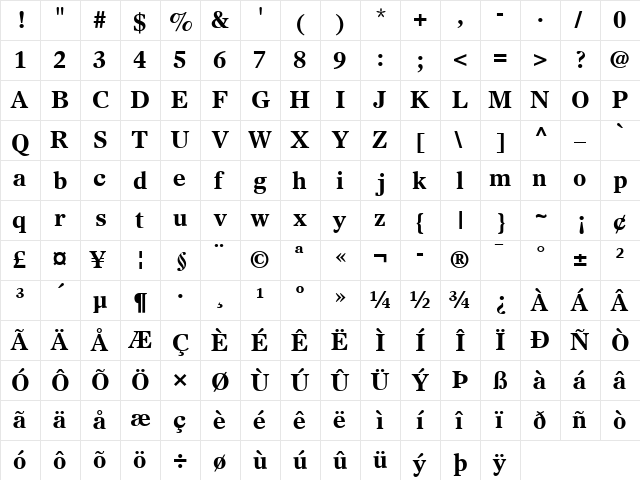
Olympian LT Bold
Design Context for Olympian LT Typeface
Olympian LT offers clean, dependable letterforms without strong stylistic allegiance, making it a practical choice for designers who need flexibility. The heavy weight commands attention and anchors typographic hierarchies.